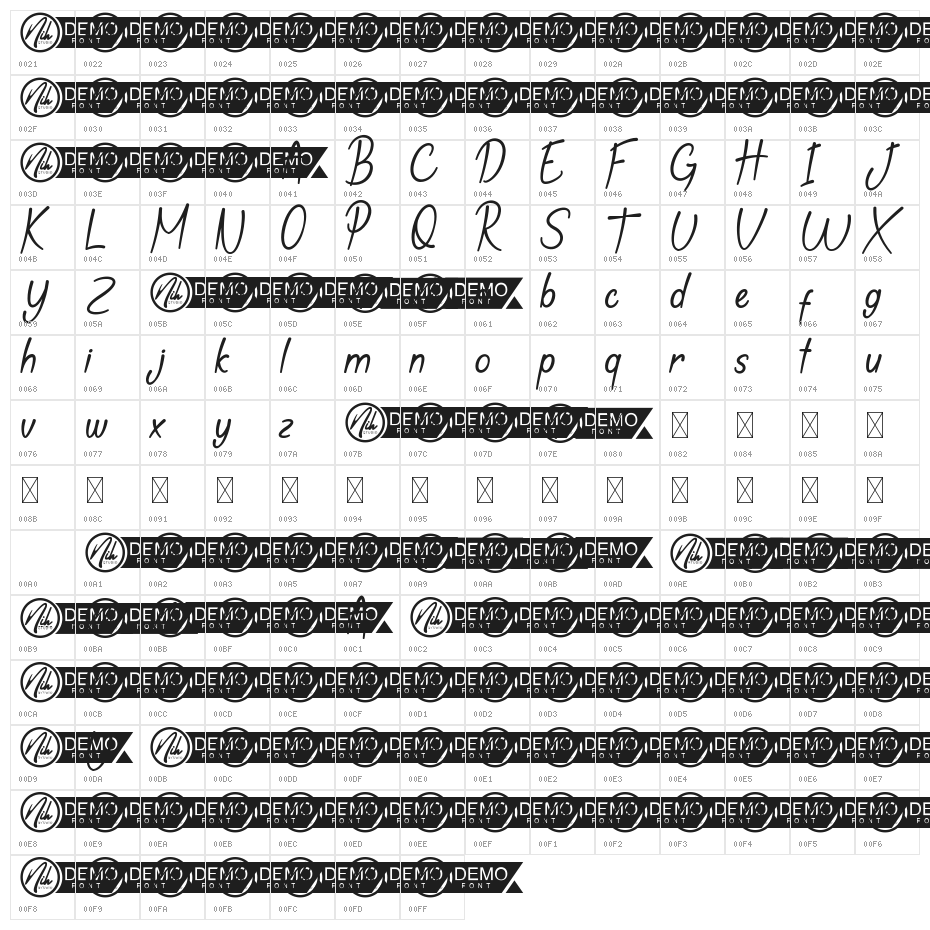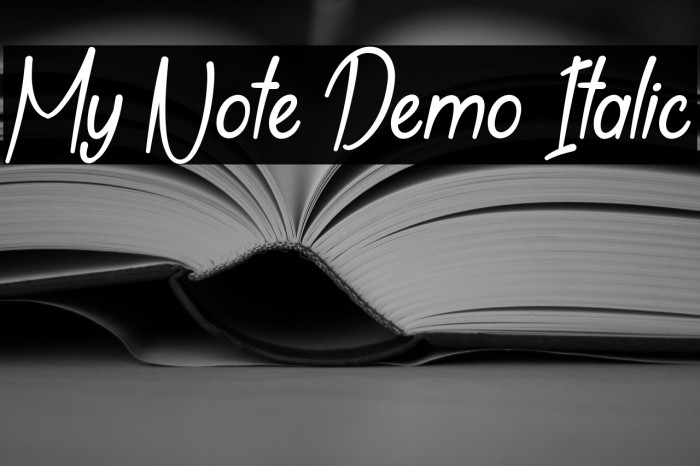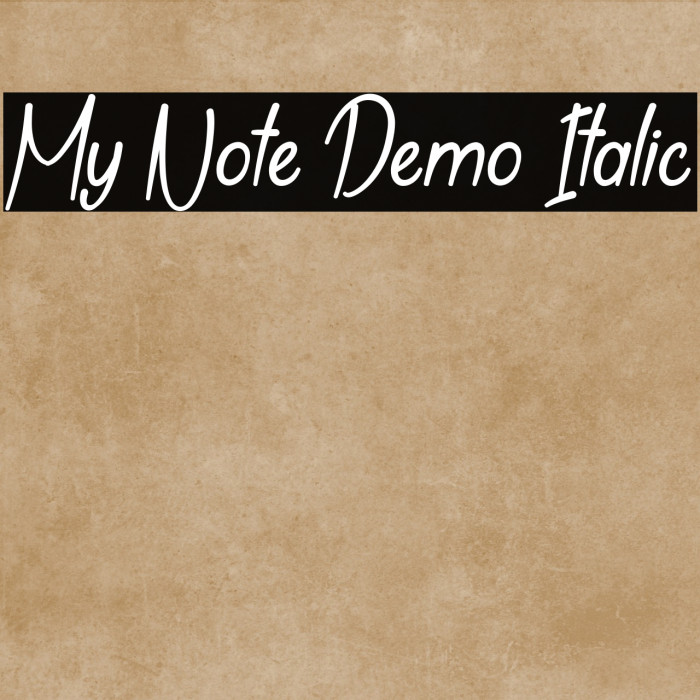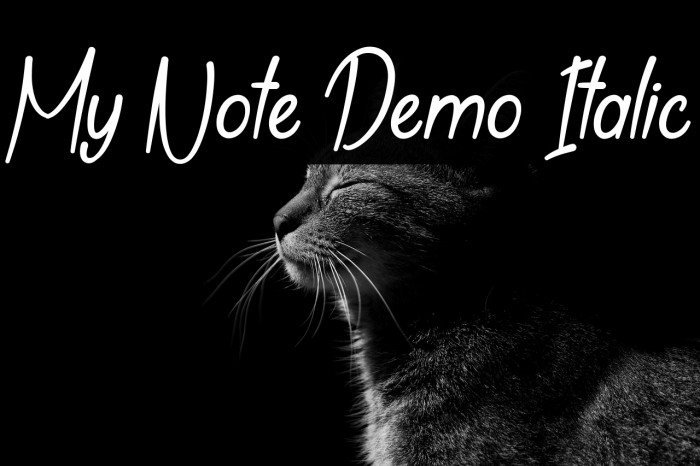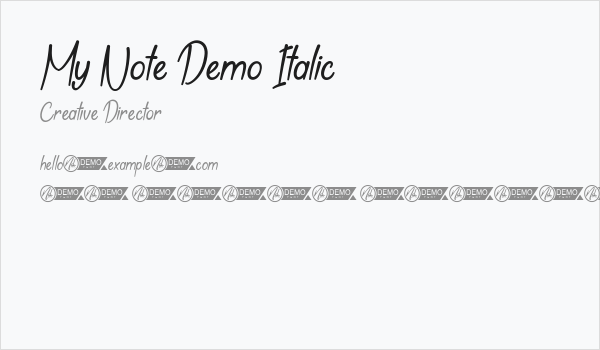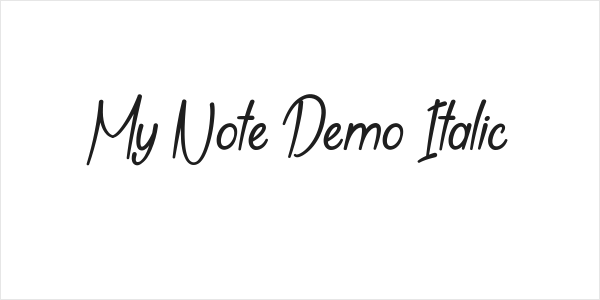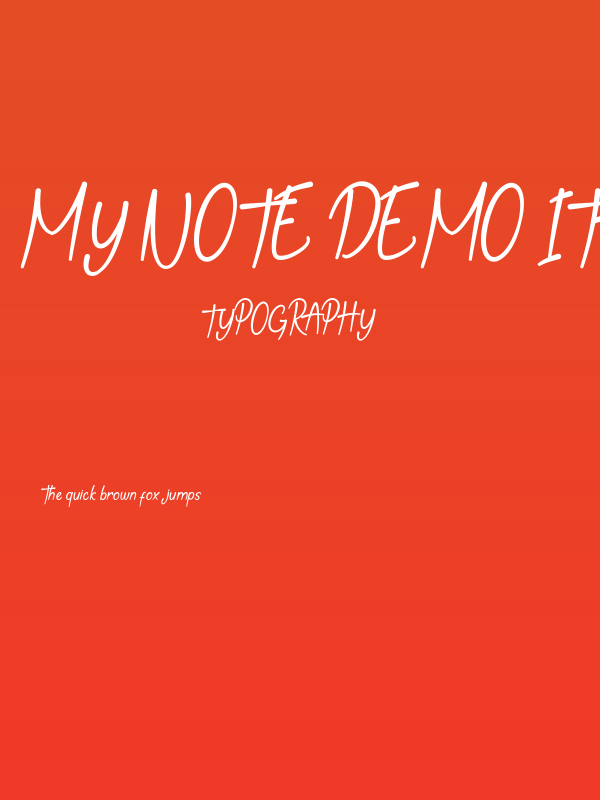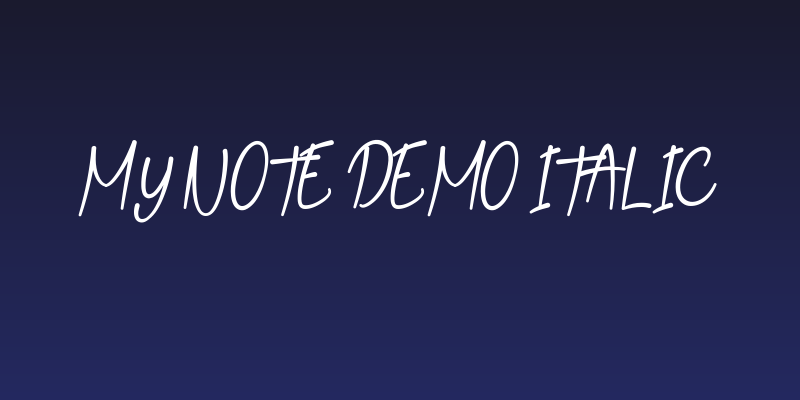
My Note Demo Italic Font
My Note Demo Italic Description
This font features a handwritten, cursive style with a playful and casual appearance. The letters are slightly slanted, giving it an italicized look that adds a sense of motion and fluidity. The strokes are smooth and consistent, with a medium weight that ensures readability while maintaining a personal touch. The uppercase and lowercase letters are well-balanced, and the overall design is cohesive, making it suitable for projects that require a friendly and approachable aesthetic. The spacing between characters is normal, allowing for clear legibility without feeling cramped.
| Use Case | Invitations, Greeting cards, Personal notes |
| Proposed Projects | Ideal for personal notes, invitations, greeting cards, and casual branding projects. |